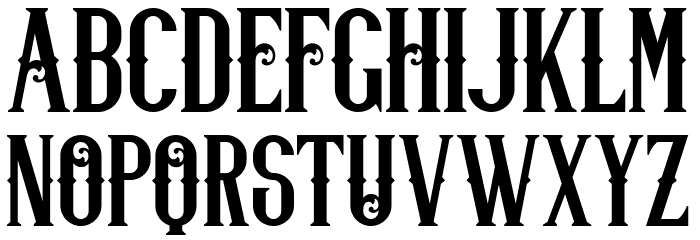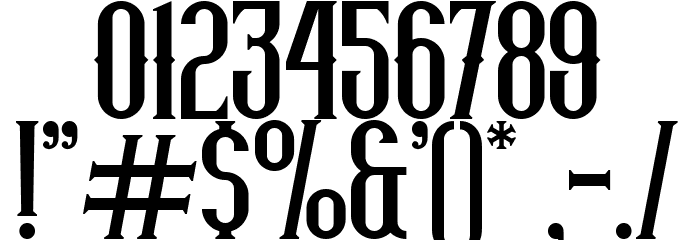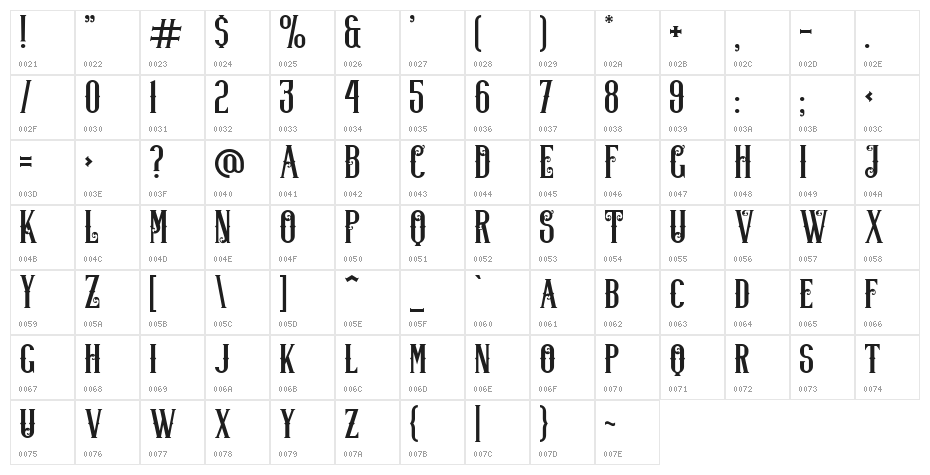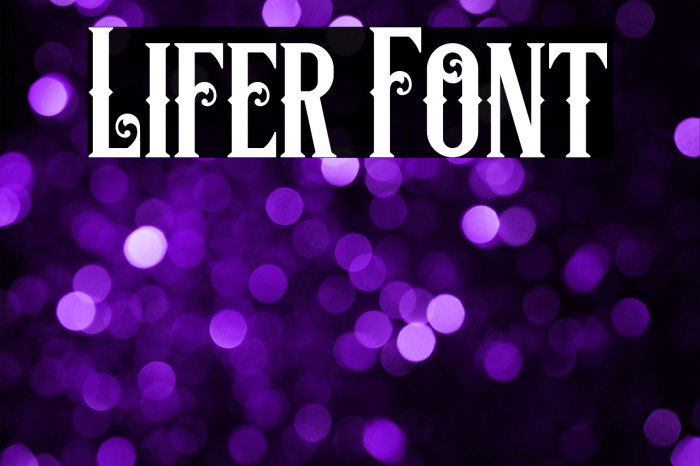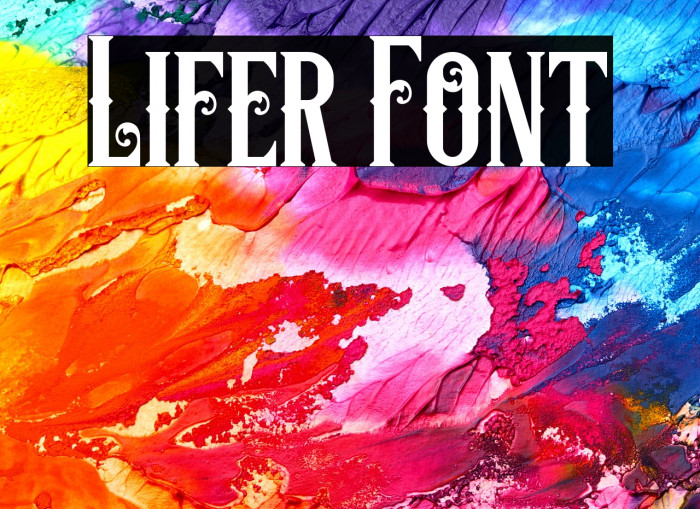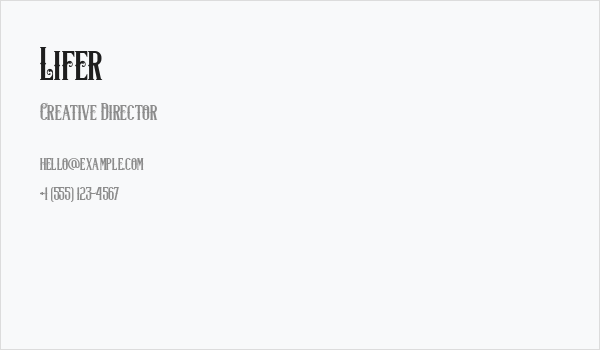
Lifer Font
This font features a bold and decorative style with intricate swirls and flourishes integrated into the letterforms. The uppercase letters are particularly ornate, with embellishments that add a sense of elegance and complexity. The numerals and special characters maintain this decorative theme, ensuring a cohesive look across all glyphs. The overall design is striking and eye-catching, making it suitable for projects that require a touch of sophistication and flair.
A bold, decorative font with intricate swirls and flourishes.
- Font: Lifer
- Proposed Projects: Ideal for wedding invitations, event posters, branding materials, and any design that requires a decorative and elegant touch.